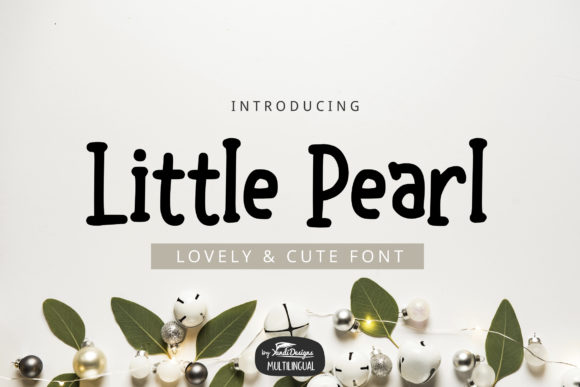
Embrace the allure of Little Pearl Font, a striking serif font that captures the essence of modern elegance. Designed by YandiDesigns, this remarkable font exudes a charm that will leave you spellbound. Its exquisite curves and delicate strokes dance across your designs, adding an artistic flair that demands attention.
With Little Pearl Font, you have the power to transform ordinary designs into extraordinary masterpieces. Its timeless appeal makes it the perfect choice for crafting logos that exude sophistication and professionalism. Its versatility extends to branding, invitations, websites, and social media posts, allowing you to create a cohesive visual identity that resonates with your audience.
Immerse yourself in the world of Little Pearl Font and discover a treasure trove of creative possibilities. Each character is meticulously crafted to convey emotion and depth, bringing your words to life. Whether you're a seasoned designer or just starting your creative journey, Little Pearl Font will elevate your designs to new heights.
Tap into the power of Little Pearl Font and unleash your artistic potential. Allow its elegant charm to enhance your projects and captivate your audience. This font is more than just a collection of letters; it's an invitation to embark on a creative odyssey that will leave you inspired and fulfilled.